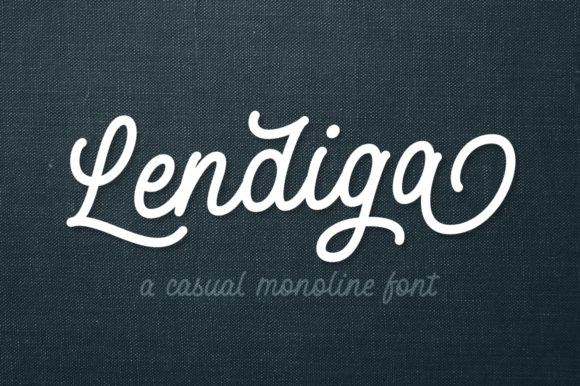
Feast your eyes on Lendiga Font, the epitome of charm, elegance, and nostalgia, carefully crafted by Locomotype. This spellbinding script font exudes a timeless aura, effortlessly evoking the golden age of handwritten artistry.
Lendiga's meticulously designed curves and graceful strokes dance across the page, captivating the eyes and hearts of all who behold it. With its distinctly retro feel, this font possesses an undeniable allure, transporting you to an era of romance and sophistication.
Unleash your creativity and let Lendiga's magic transform your design dreams into breathtaking realities. Whether you're crafting heartfelt invitations, delightful branding materials, or eye-catching social media posts, this font will add a touch of enchantment to every project.
Lendiga's versatility extends beyond aesthetics; its readability and legibility make it a practical choice for both digital and print applications. Its graceful characters ensure effortless reading, while its distinct style guarantees that your words will leave an unforgettable impression.
Elevate your designs to new heights with Lendiga Font, a true masterpiece that combines timeless charm with modern functionality. Embrace the power of nostalgia and allow this font to take your projects to extraordinary new levels.